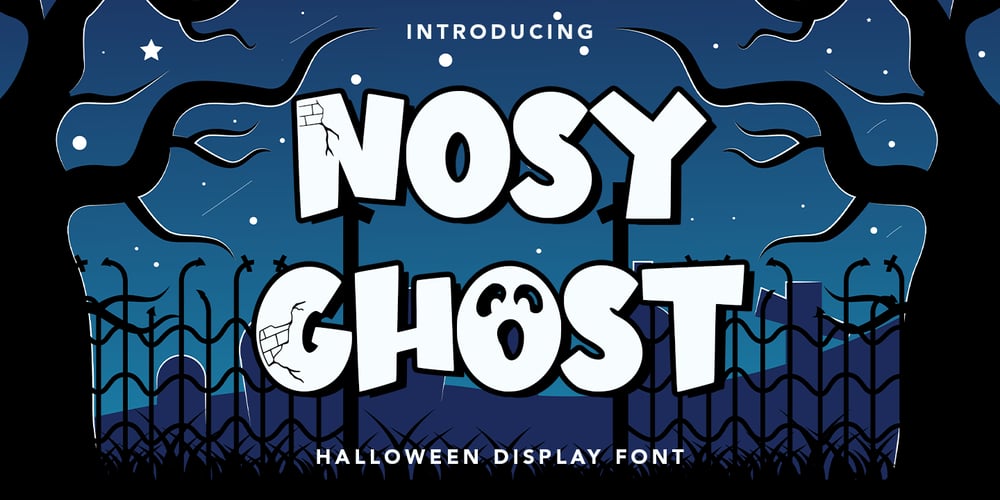
Nosy Ghost
Nosy Ghost font
Nosy Ghost Font Family was designed by Asep Rendi and published by Hatftype. Nosy Ghost contains 1 styles and family package options. Nosy Ghost – Halloween Display Font is a display font that is inspired by horror and gothic style because its shape is very unique and is perfect for any project that you will use with this theme.Nosy Ghost came with opentype features such stylistic alternates, stylistic sets & ligatures good for logotype, poster, badge, book cover, tshirt design, packaging and any more.Features :1.Uppercase & Lowercase 2.Multilingual support 3.Number 4.Symbol 5.Punctuation. 6.Extra Dingbat 7.Support in Mac and Windows OS -Support in design application (photoshop, illustrator, and more)There it is! I really hope you enjoy it.